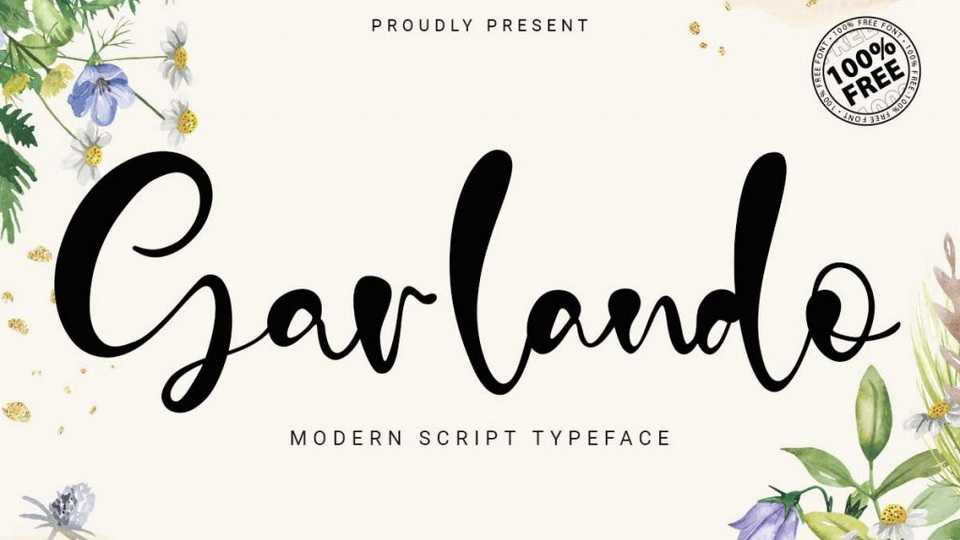
Download Garlando font, a organic hand painted brush typeface. Garlando is suitable for adorable invitation for wedding, birthday, special day and also perfect for your other projects branding.
Designer: VZTYPE Studio